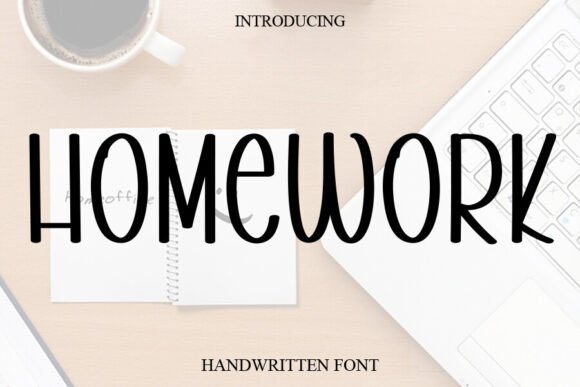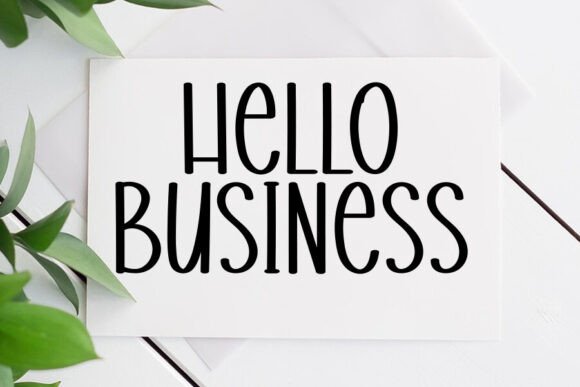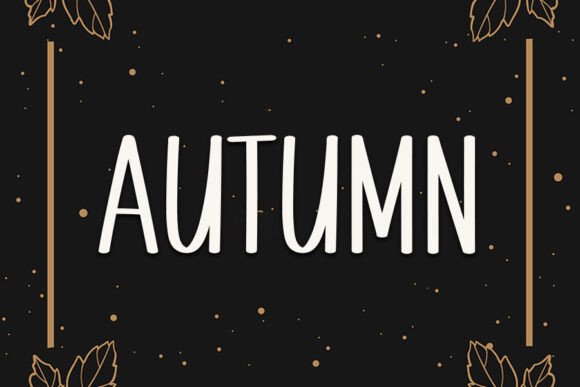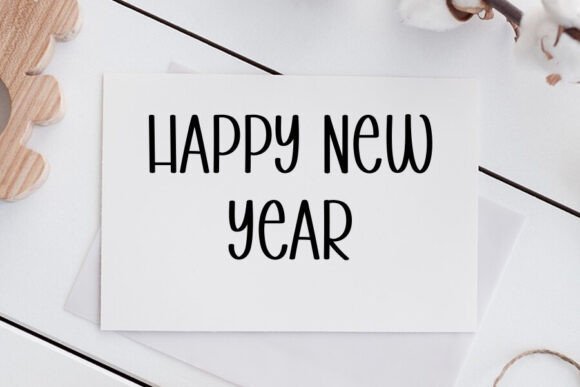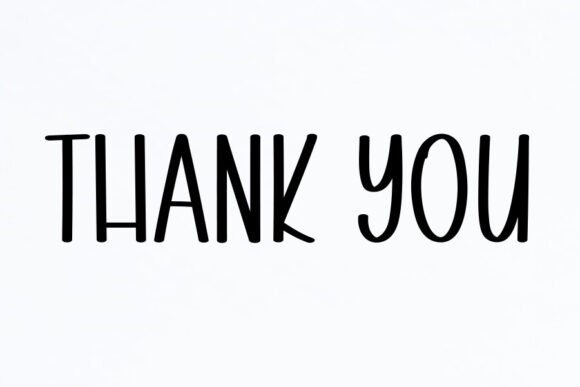
Discover the Simple Charm of Homework Font
There’s something magical about holding a pen to paper and watching your ideas come to life. As designers, we’ve all experienced that rush of creativity when a new project starts to take shape. But sometimes, it’s the smallest details that make all the difference. That’s where the Homework Font comes in – a simple, handwritten font that adds a touch of natural charm to any project.
With its versatility and effortless feel, the Homework Font is perfect for everything from greeting cards to headlines. Whether you’re working on a personal project or a professional design, this font is guaranteed to bring a smile to your face and a unique touch to your work.
For designers, the Homework Font is a valuable tool in their arsenal. Its simplicity and elegance make it easy to use and customize, allowing you to focus on what really matters – bringing your ideas to life.
Key Features of Homework Font
- Unique Characteristics: The font features a unique, handwritten style with a mix of cursive and print elements, giving it a distinctive and educational feel.
- Font Weight: Homework Font comes in a single font weight, but it has a range of stylistic sets and variations to add depth and interest to your text.
Homework Font Review
At first glance, the Homework Font seems like a quirky and fun addition to any digital project. I appreciate its hand-drawn feel, which is reminiscent of traditional schoolwork. ✨ The font’s imperfections and slight irregularities give it a charming, human touch.
One of the standout features of Homework Font is its versatility. It comes in a range of weights and styles, making it suitable for a variety of applications, from headings to body text. ✨ The font also has a good balance of x-height and line spacing, which makes it easy to read.
- ⚠️ Not ideal for small text: The font’s bold lines and irregularities can make small text difficult to read.
Overall, I think Homework Font is a great choice for projects that need a unique, hand-crafted feel. However, it’s not the best option for projects that require a high degree of precision or multilingual support.
Use Homework Font to create a retro or vintage aesthetic in your designs. It’s perfect for:
- School projects and assignments
- Old-school advertisements and posters
- DIY crafts and scrapbooking
Remember to experiment with different font sizes, colors, and combinations to get the most out of Homework Font.